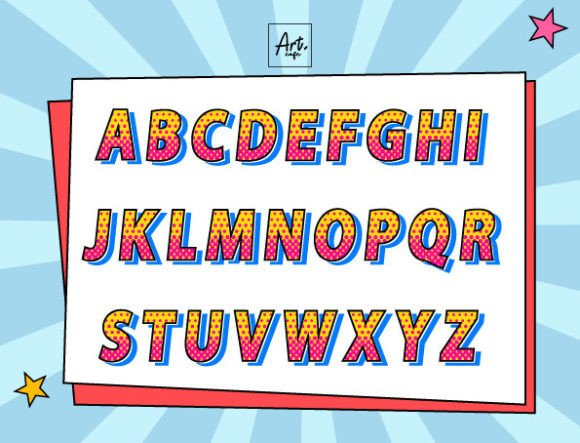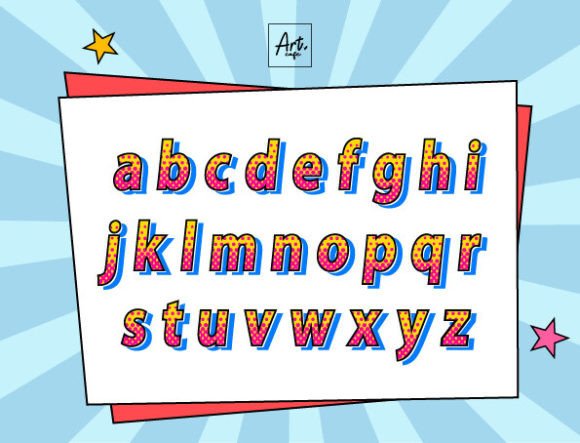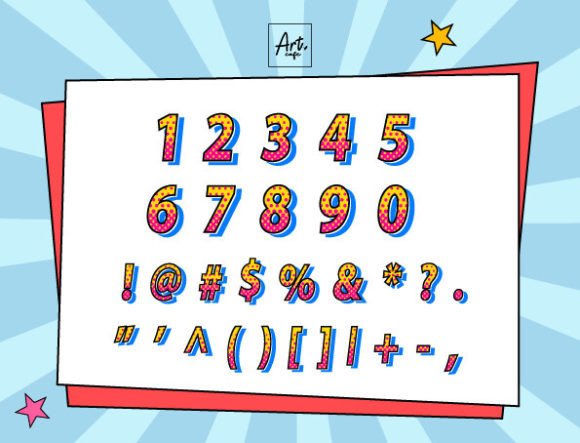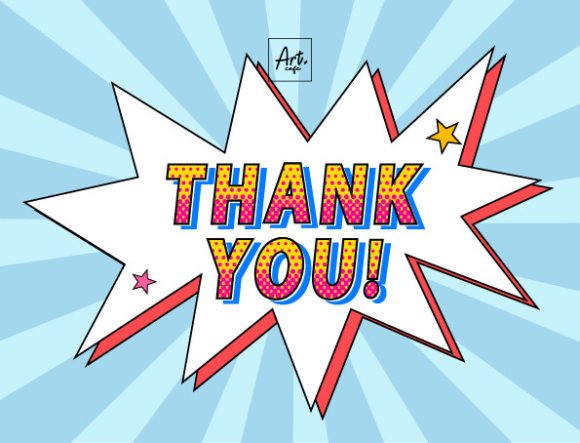
Unleash Your Creative Flair with Comic Font: A Vibrant Pop-Art Inspired Typeface
Are you looking for a font that can add a dash of fun and playfulness to your designs? Look no further than the Comic font, a vibrant and pop-art-inspired typeface that’s perfect for creating engaging and retro-chic headlines and posters. With its cheerful and fun-loving aura, this font is an excellent choice for children’s events, vivacious parties, and any project that requires a touch of nostalgia and whimsy.
The Retro Charm of Comic Font
The Comic font is a delightful blend of color and style, reminiscent of the classic comic books and cartoons of the past. Its bold and bubbly design makes it perfect for grabbing attention and adding a touch of personality to your designs. Whether you’re creating a poster for a kids’ birthday party or a flyer for a music festival, the Comic font is sure to bring a smile to your audience’s faces.
Key Features of Comic Font
- Vibrant and Pop-Art Inspired Design: The Comic font boasts a bright and eye-catching design that’s sure to stand out in any project.
- Retro Charm: With its nostalgic feel and classic comic book style, this font is perfect for adding a touch of vintage charm to your designs.
- Cheerful and Fun-Loving Aura: The Comic font exudes a playful and carefree vibe that’s perfect for kids’ events and parties.
- Excellent for Headlines and Posters: The bold and attention-grabbing design of the Comic font makes it perfect for use in headlines and posters.
Using Comic Font in Your Designs
The Comic font is incredibly versatile and can be used in a variety of design projects, including:
- Children’s Events: The Comic font is perfect for creating posters, flyers, and invitations for kids’ birthday parties, school events, and other children’s activities.
- Parties and Festivals: Add a touch of fun and playfulness to your party and festival designs with the Comic font.
- Posters and Headlines: Use the Comic font to create eye-catching posters and headlines that grab attention and add a touch of personality to your designs.
- Digital and Print Media: The Comic font can be used in both digital and print media, including social media graphics, flyers, brochures, and more.
Tips for Getting the Most Out of Comic Font
Here are a few tips for getting the most out of the Comic font:
- Experiment with Colors: The Comic font looks great in bright, bold colors, so don’t be afraid to experiment and find the perfect color scheme for your design.
- Use it in Combination with Other Fonts: The Comic font pairs well with other fonts, so try combining it with a sans-serif font for added contrast and visual interest.
- Play with Size and Scale: The Comic font looks great in large sizes, but it can also be used in smaller sizes to add a touch of personality to your designs.
The Comic font is a vibrant and pop-art-inspired typeface that’s perfect for adding a touch of fun and playfulness to your designs. With its retro charm, cheerful aura, and versatility, it’s an excellent choice for designers and crafters looking to create engaging and eye-catching headlines and posters. So why not give it a try and unleash your creative flair with the Comic font?